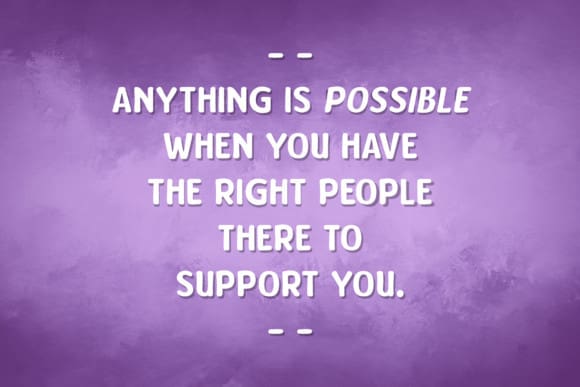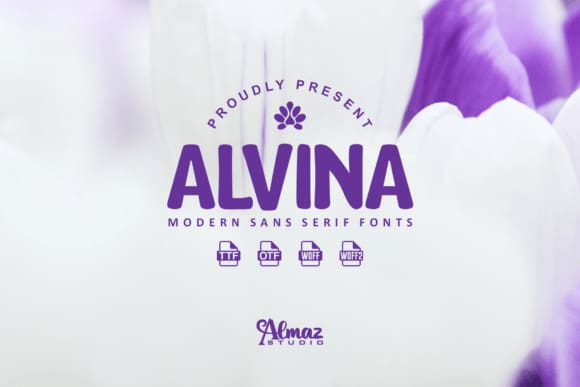
Alvina Font
Alvina Font was made for text display purposes inspired by the handwritten font. You can easily create a simple, clean, cool logo, branding, and promotion with this font. Alvina brings a modern and strong impression to your design making this font suitable as the main text/header text on a website or layout design. The font is suitable for blog titles, headers, promotional text, calls to action, and more.